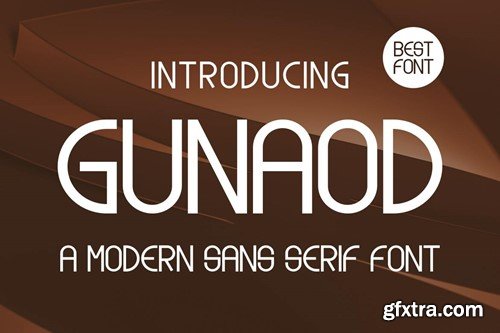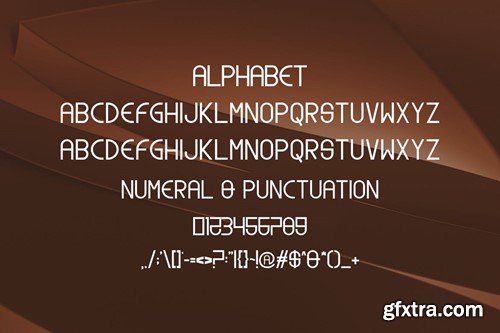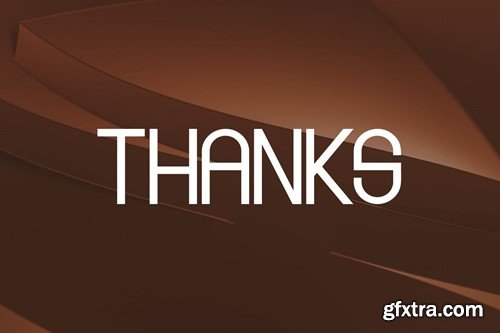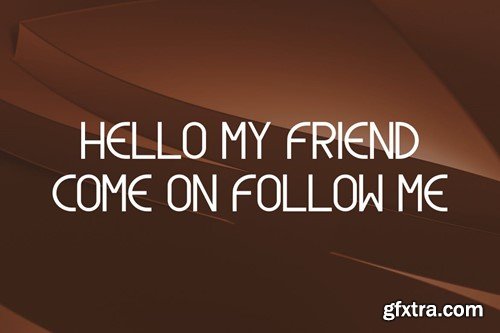
Gunaod – A Modern Font
Introducing Gunaod Modern Sans Serif Font. Gunaod is a modern and simple font, best used as a display for headings, logos, branding, magazines, product packaging and invitations. Gunaod come with clean lines and smooth curves give any project an extra touch of class. What you get: Thank you.